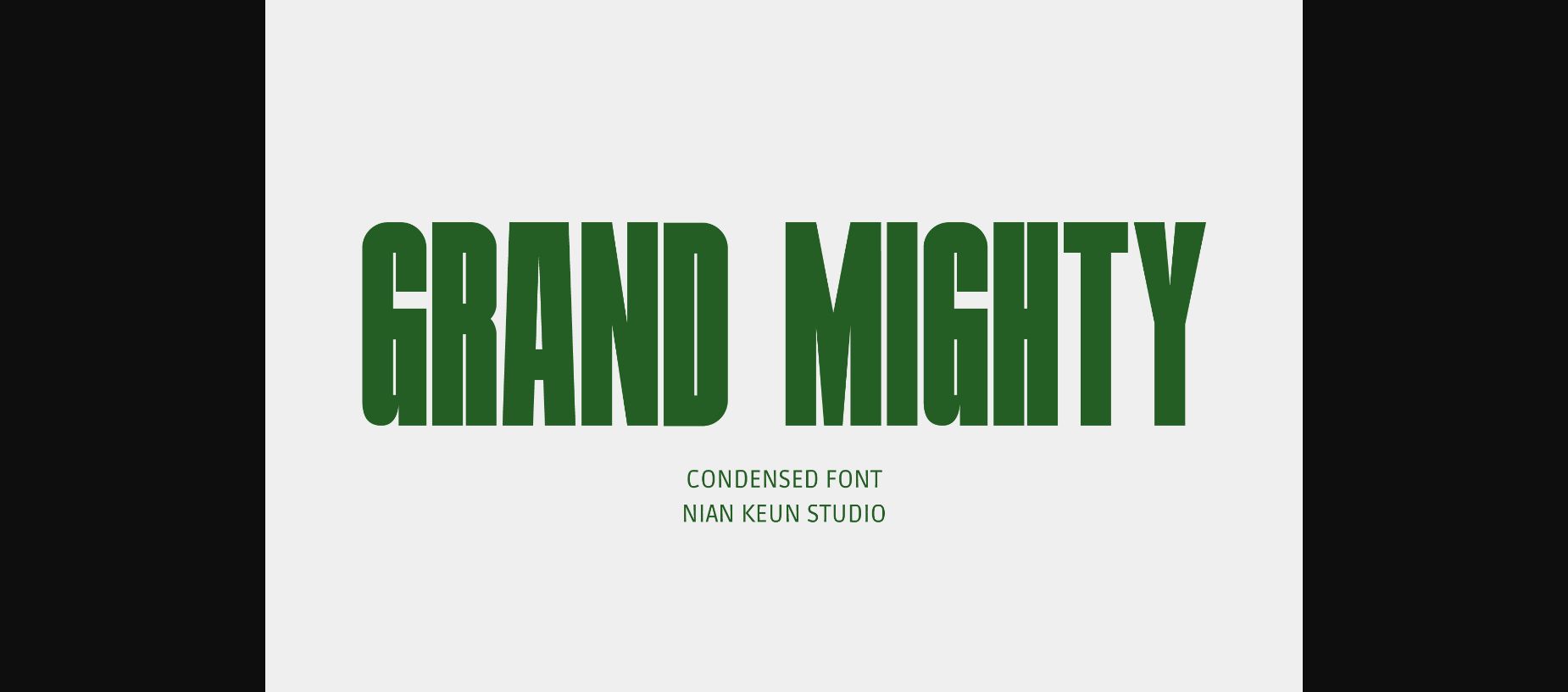
About Grand Mighty Font
Grand Mighty is a sans serif font that seamlessly blends clean and modern elements. This font stands out with its condensed design, creating a powerful and efficient visual impression. The simplicity and sophistication of “Grand Mighty” make it an ideal choice for modern projects such as logo design, promotional materials, eye-catching headlines, and more.